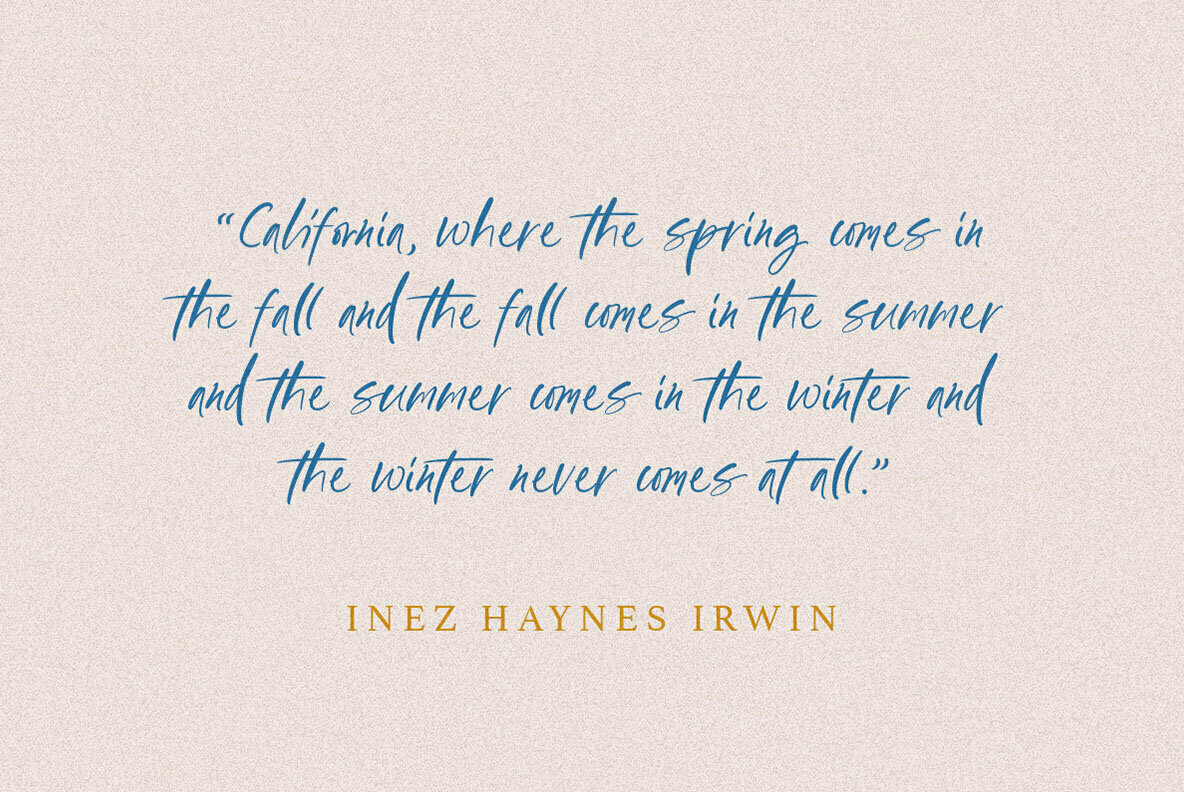
California Quotes Font
California Quotes Regular
California Quotes is a casual typeface based on natural hand writing. This font has many stylistic alternates, ligatures, swashes so you can play around with them using opentype features and creates lettering with natural touch.
- uppercase & lowercase
- numbers and punctuation
- multilingual
- alternates and ligatures